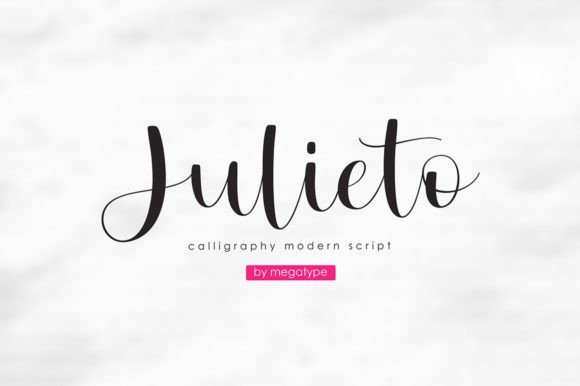
Introducing Julieto, a mesmerizing script font that will ignite your creativity and transform your designs into breathtaking masterpieces. Dive into the world of elegance and sophistication as you explore the unique characteristics of this captivating font.
With its fluid strokes and graceful curves, Julieto dances across the page, leaving a trail of enchantment in its wake. Each letter exudes a timeless charm, reminiscent of the handwritten notes of a passionate lover. The font's organic flow and subtle variations create a sense of authenticity that will add depth and soul to your projects.
Unleash your imagination and watch as Julieto brings your words to life. Whether you're designing posters that demand attention, crafting invitations that exude grace, or creating social media posts that captivate your audience, Julieto is your perfect companion. Its versatility extends to branding, logos, packaging, and any project where you desire a touch of elegance and sophistication.
Julieto is not just a font; it's an experience. As you immerse yourself in its beauty, you'll discover a world of creative possibilities. Its PUA encoding ensures effortless access to a treasure trove of glyphs and ligatures, empowering you to add intricate details and flourishes that elevate your designs to new heights.
Don't settle for ordinary fonts that blend into the background. Choose Julieto and embark on a creative journey where your imagination knows no bounds. Let your designs blossom with elegance, captivate your audience, and leave a lasting impression that will be cherished forever.